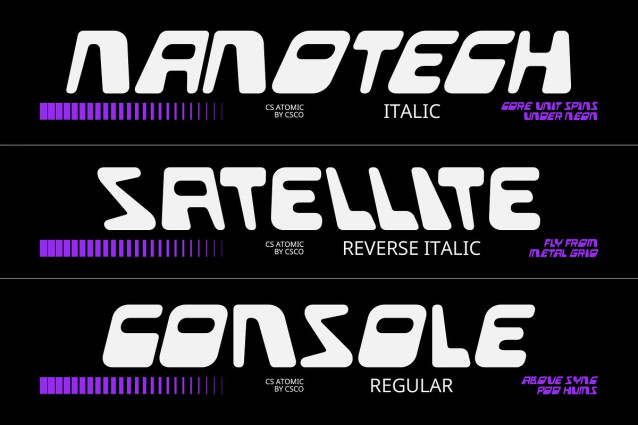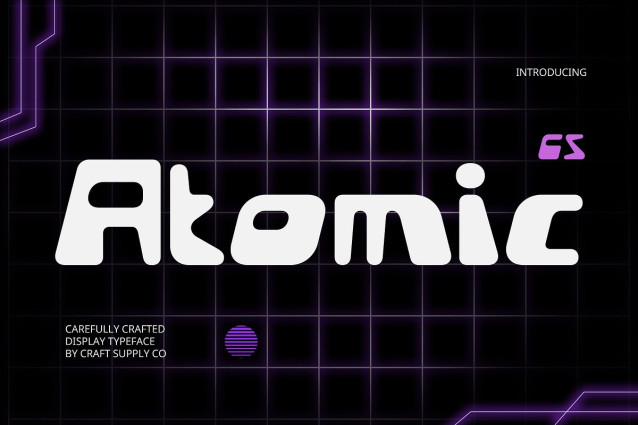
CS Atomic Font
CS Atomic Font is a bold display font inspired by the iconic Y2K aesthetic, showcasing playful curves, chrome-inspired shapes, and a retro-digital feel. Its expressive and exaggerated forms embody the vibrant and experimental spirit of the early 2000s—perfect for creating bold, nostalgic visuals with a modern edge.
Futuristic Nostalgia Meets Creative Expression Blending bubble, glitch, and chrome-like effects, CS Atomic captures the tension between digital optimism and pop culture chaos. Each letter is infused with a sense of motion and attitude, ideal for designers looking to inject fun, rebellion, and tech-era vibes into their work.
Made to Stand Out in Loud Designs Whether it’s a music poster, album cover, or fashion branding, CS Atomic is built for impact. Its daring letterforms and nostalgic references turn any design into a visual statement—playful yet futuristic, retro yet fresh.
Perfect for Trendy, Experimental Projects CS Atomic thrives in bold compositions that demand personality. Perfect for creative projects that dare to stand out, CS Atomic gives you the tools to balance nostalgia and innovation. It’s more than just a font—it’s a design experience that sparks curiosity, energizes compositions, and pays homage to a past era while looking firmly toward the future.